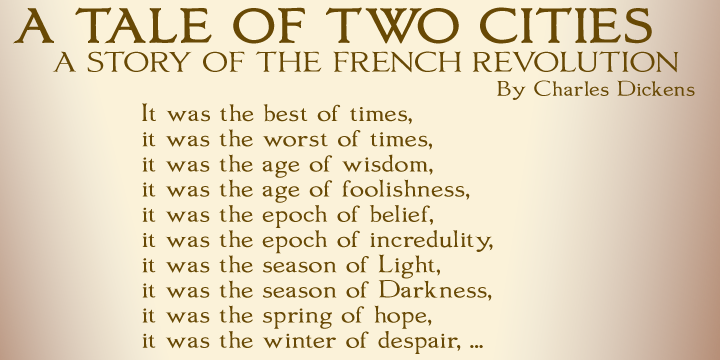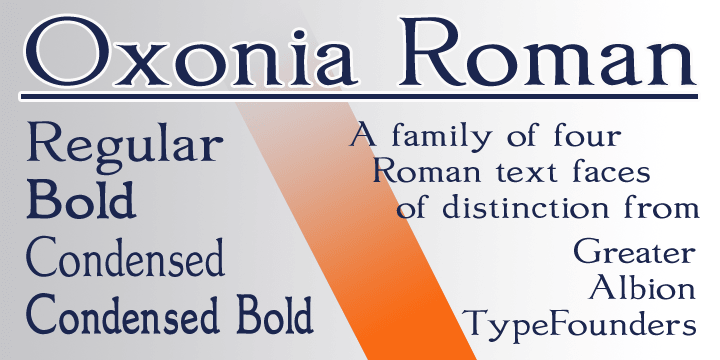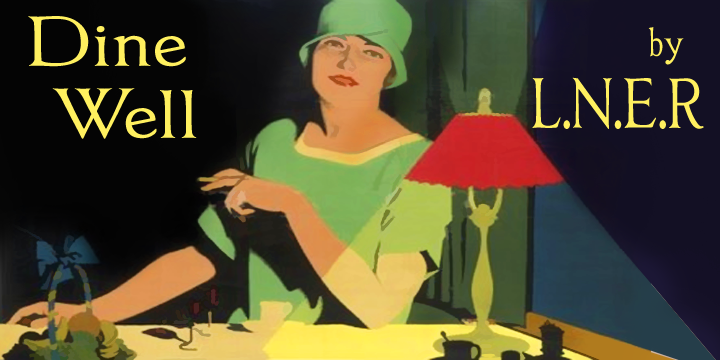
Oxonia Roman is a historical and serif font family. This typeface has four styles and was published by Greater Albion Typefounders.
Oxonia Roman is a text family, offered in two weights and two widths, deriving it’s inspiration from classic Roman typefaces. It is intended for the setting of text legiblyin quantity, and compliments our Anavio and Vectis faces particularly well.